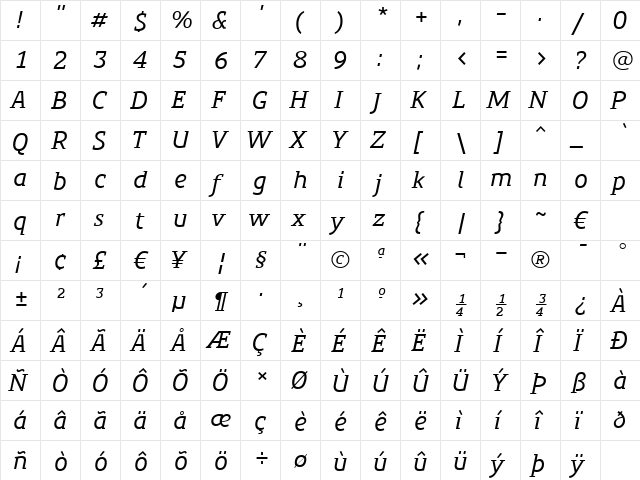
PreciousSerifMediumItalic Regular Font Preview
PreciousSerifMediumItalic Regular
PreciousSerifMediumItalic carries the refined structure of traditional serif typography, with bracketed terminals and considered proportions that communicate credibility and craft. Its italic angle brings a sense of urgency and motion to the letterforms.
Pro Tip: Set PreciousSerifMediumItalic with slightly loose tracking in headlines to let each letterform's detail read clearly at display sizes.